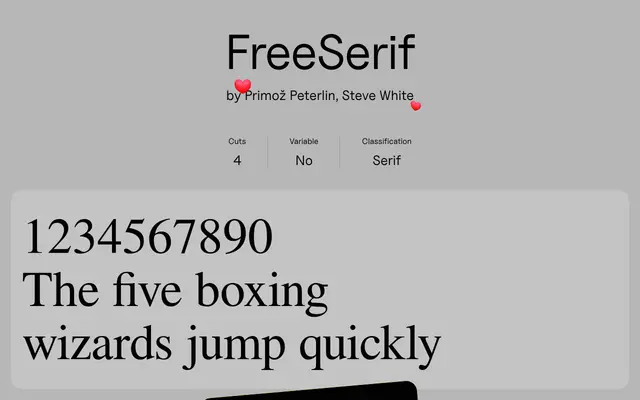
FreeSerif
A broad-coverage open-source serif available in four cuts under the GNU General Public License.
FreeSerif is a general-purpose serif typeface designed by Primož Peterlin and Steve White, offering four cuts covering regular, italic, bold and bold italic. Its principal strength lies in its extensive Unicode coverage, supporting scripts from Latin and Cyrillic to Arabic, Devanagari and beyond. Released under GPL v2.0, it permits commercial use, modification and redistribution with conditions.
Classified as Serif by the foundry; a general-purpose serif typeface with broad Unicode coverage, not tied to a specific historical model such as old-style or transitional.